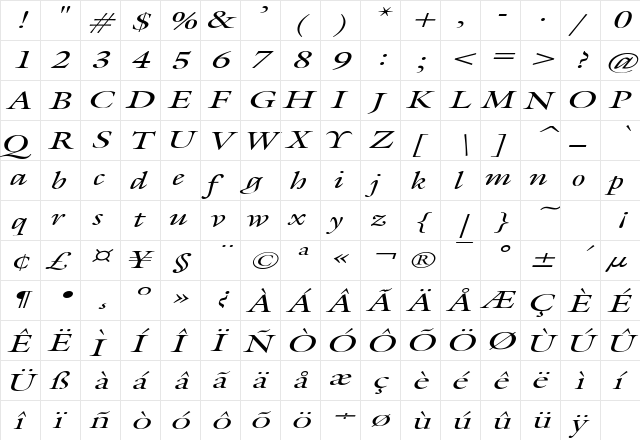
JoulliardExtended Italic Font Preview
JoulliardExtended Italic
Design Context for JoulliardExtended Typeface
JoulliardExtended offers clean, dependable letterforms without strong stylistic allegiance, making it a practical choice for designers who need flexibility. The dynamic lean of this cut emphasises speed and emphasis in any layout.
Pro Tip: Use JoulliardExtended for emphasis, pull quotes, and subheadings where its slanted energy can add rhythm to the layout.